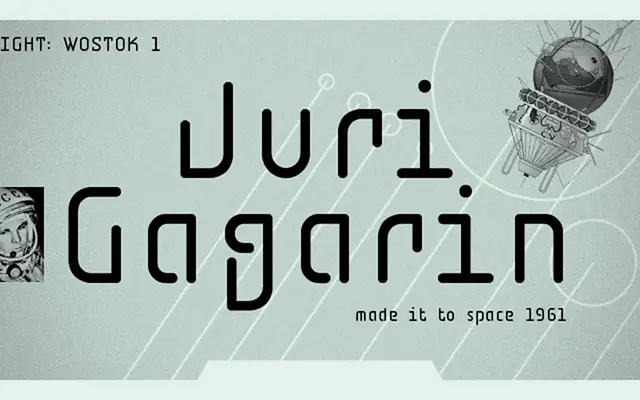
BD Jupiter
Type Different · 2006
A stencil display family with serif details drawn from architectural plans and military markings, offered in regular and bold weights with matching stencil cuts.
Four styles make up the family: Regular, Bold, Regular Stencil and Bold Stencil. The letterforms carry open shapes with subtle serif details, drawing on the practical lettering found on instruction guides, technical plans and equipment crates. Suited to large-scale use on products, buildings, maps and printed titles where a utilitarian, constructional tone is wanted.
BD Jupiter draws from stencil lettering on architectural plans and military equipment, with open letterforms and serif details that place it firmly in the display category with a stencil subcategory.